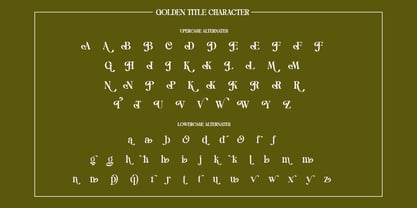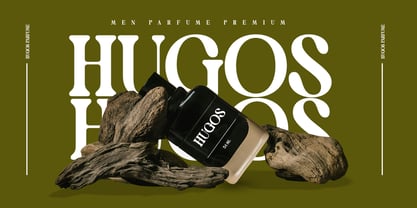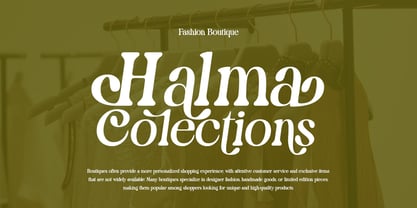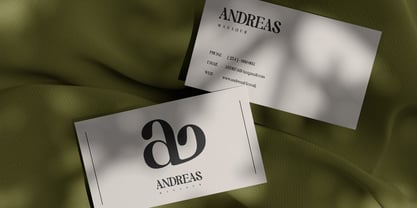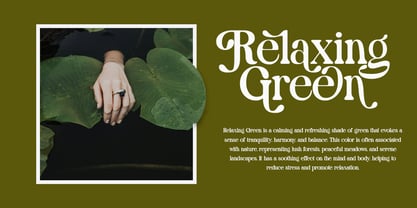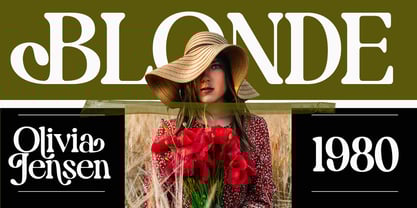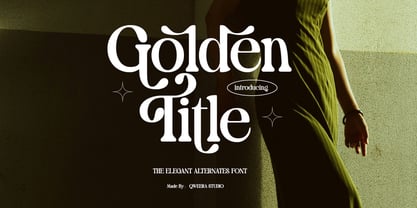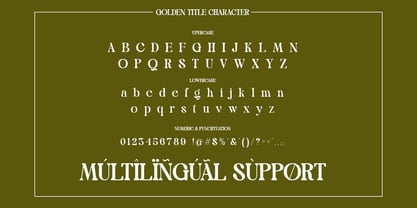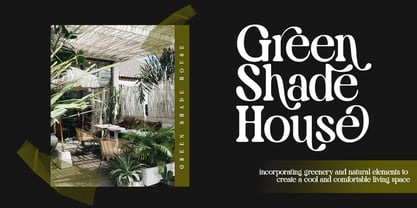
Golden Title
by Qweera Studio
The Golden Title Font Family was designed by Idhham Cholid Rikzano Yahya and published by Qweera Studio. Golden Title contains 2 styles and family package options. More about this family
Golden Title - Elegant Vintage Serif Font for Timeless Branding
Golden Title is a breathtaking vintage serif font that exudes classic sophistication with a modern touch. Featuring both regular and italic versions with ornate alternates and ligatures, this typeface is meticulously crafted for luxury branding, elegant logos, premium packaging, and editorial designs that demand timeless appeal.
Where Vintage Charm Meets Contemporary Elegance
With its graceful serifs and flowing italics, Golden Title delivers exceptional versatility for prestigious projects. The carefully designed alternates and ligatures allow for exquisite typographic compositions that radiate refinement and class.
Premium Features Include:
• Vintage Serif Design – Perfect for luxury branding and heritage-inspired designs
• Dual Style Versions – Regular & italic for harmonious typography
• Ornate Alternates – 25+ special glyphs for unique customization
• Decorative Ligatures – Flawless letter connections for premium aesthetics
• Universal Application – From wedding invitations to product packaging
• Extended Language Support – Complete Latin character set
Elevate Your Brand with Golden Title's Timeless Beauty Ideal for:
• High-end jewelry branding
• Premium wine label
• Luxury hotel identity
• Vintage book covers
• Elegant event stationery
Designers: Idhham Cholid Rikzano Yahya
Foundry: Qweera Studio